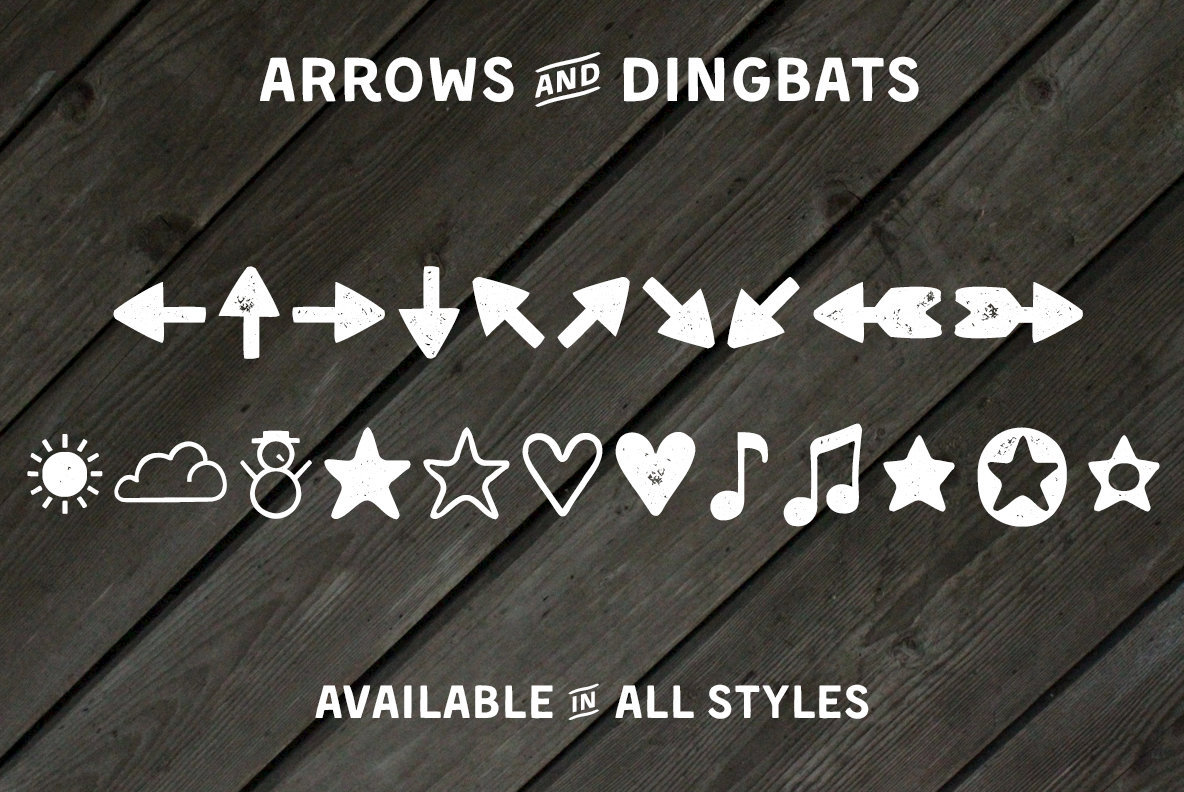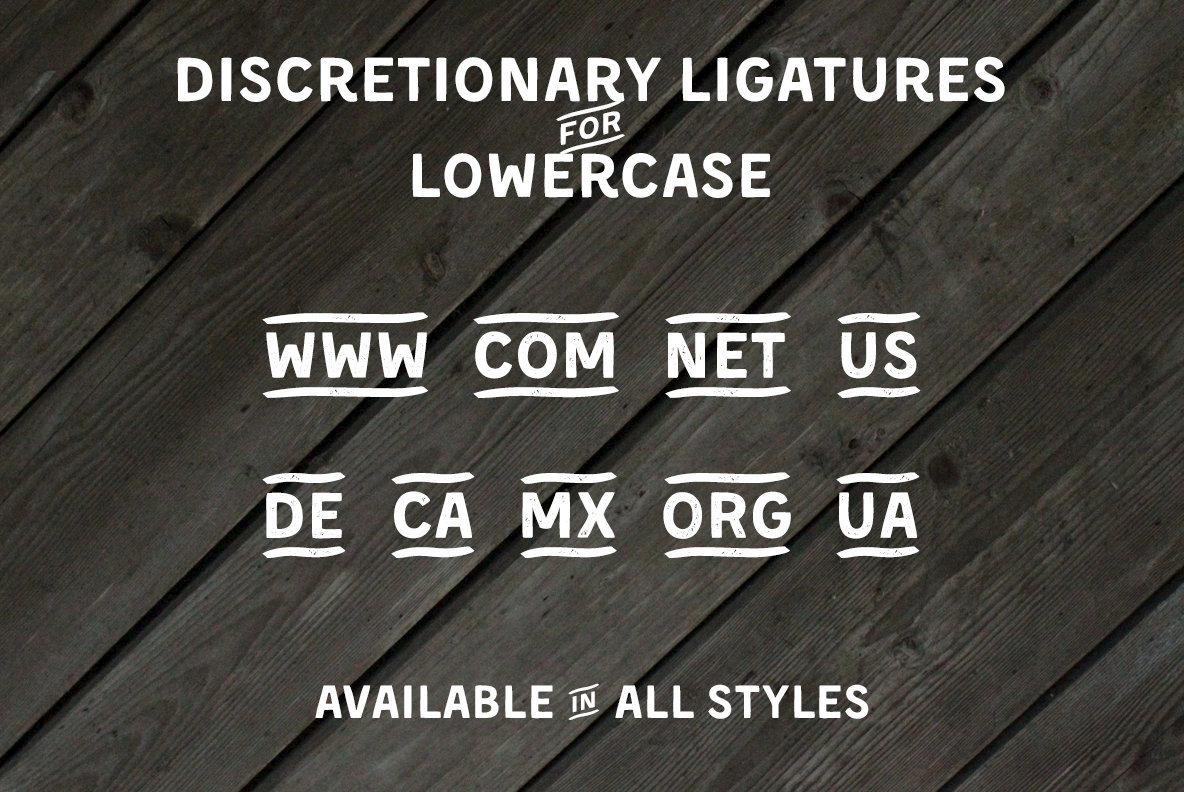
Kent 4F Font
Embodying a distinctive blend of rustic charm and modern utility, Kent 4F is a versatile sans-serif typeface designed by Sergiy Tkachenko in 2015. The rough vernacular style of this font imparts a unique character, making it well-suited for diverse advertising applications. With its comprehensive range of features, the typeface elevates any visual project that calls for a touch of the rustic or the authentic.Kent 4F: Robust Vernacular Sans